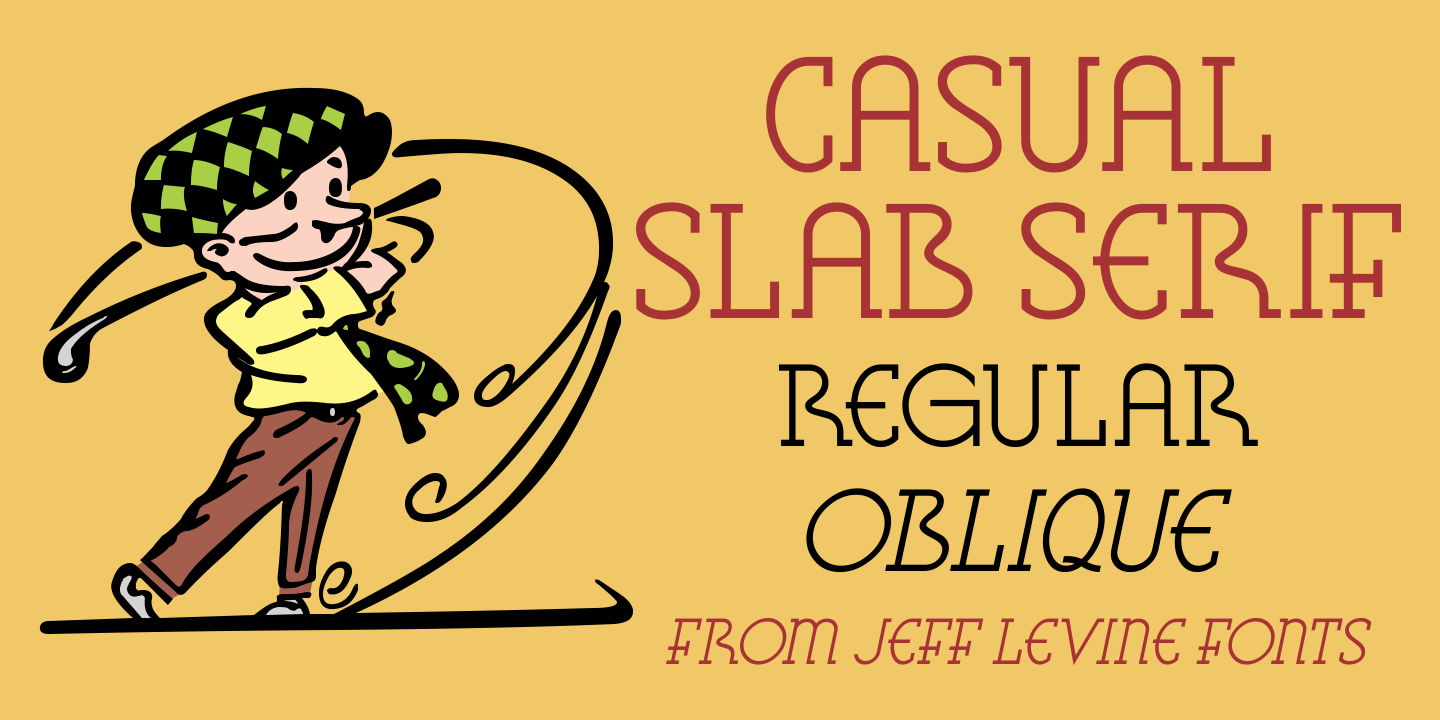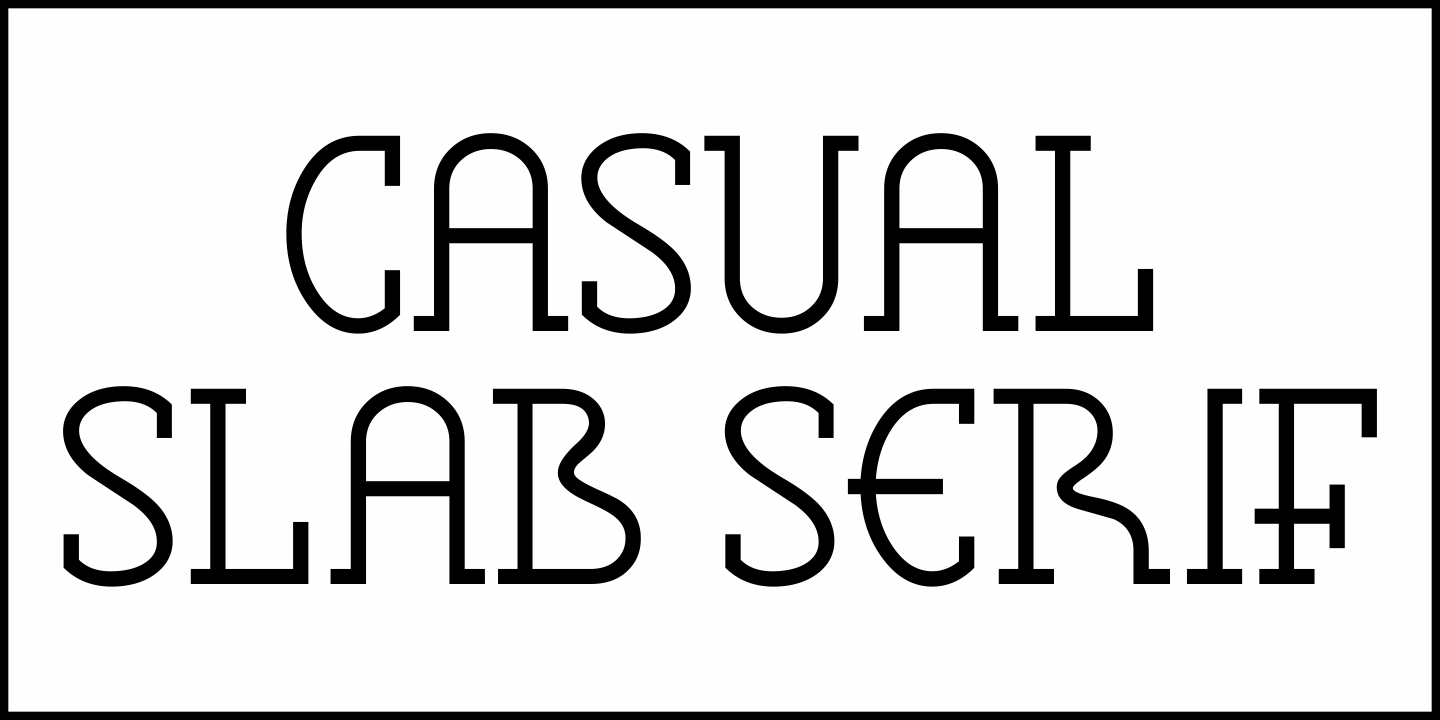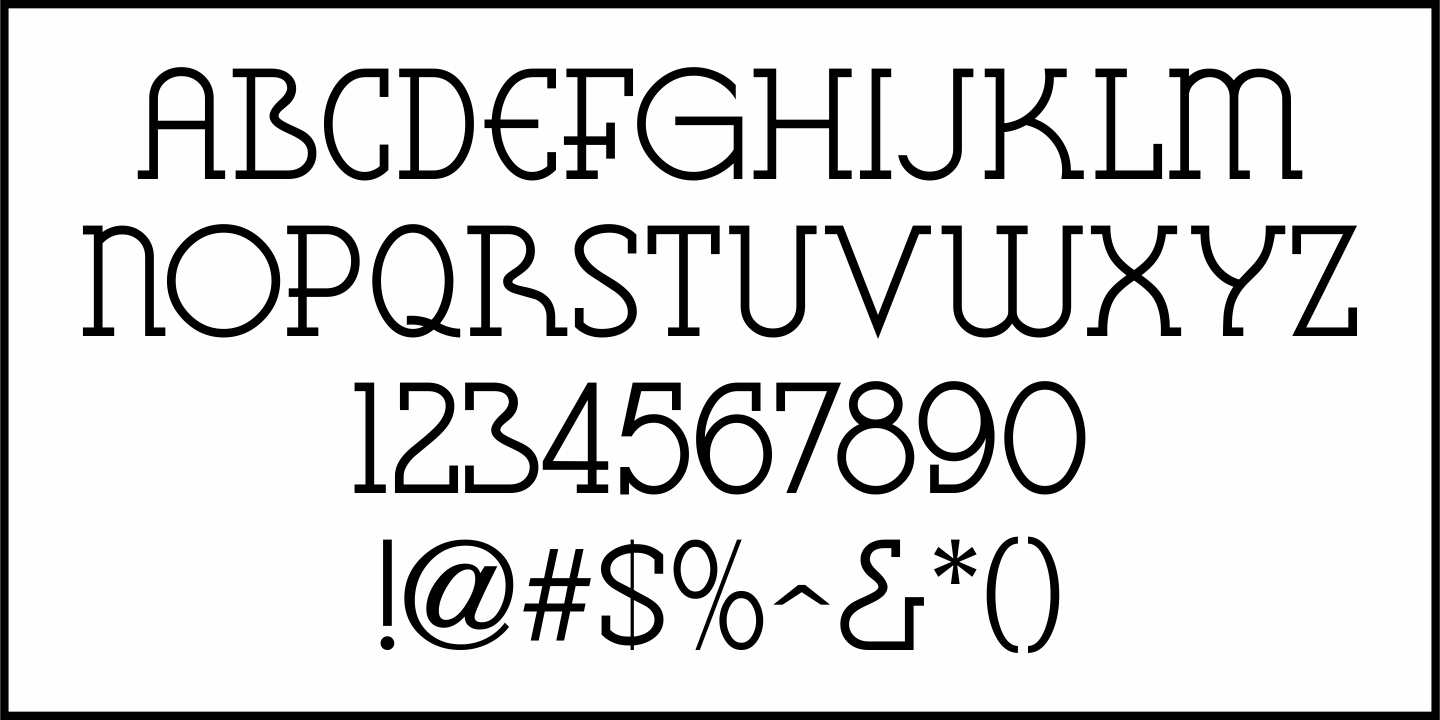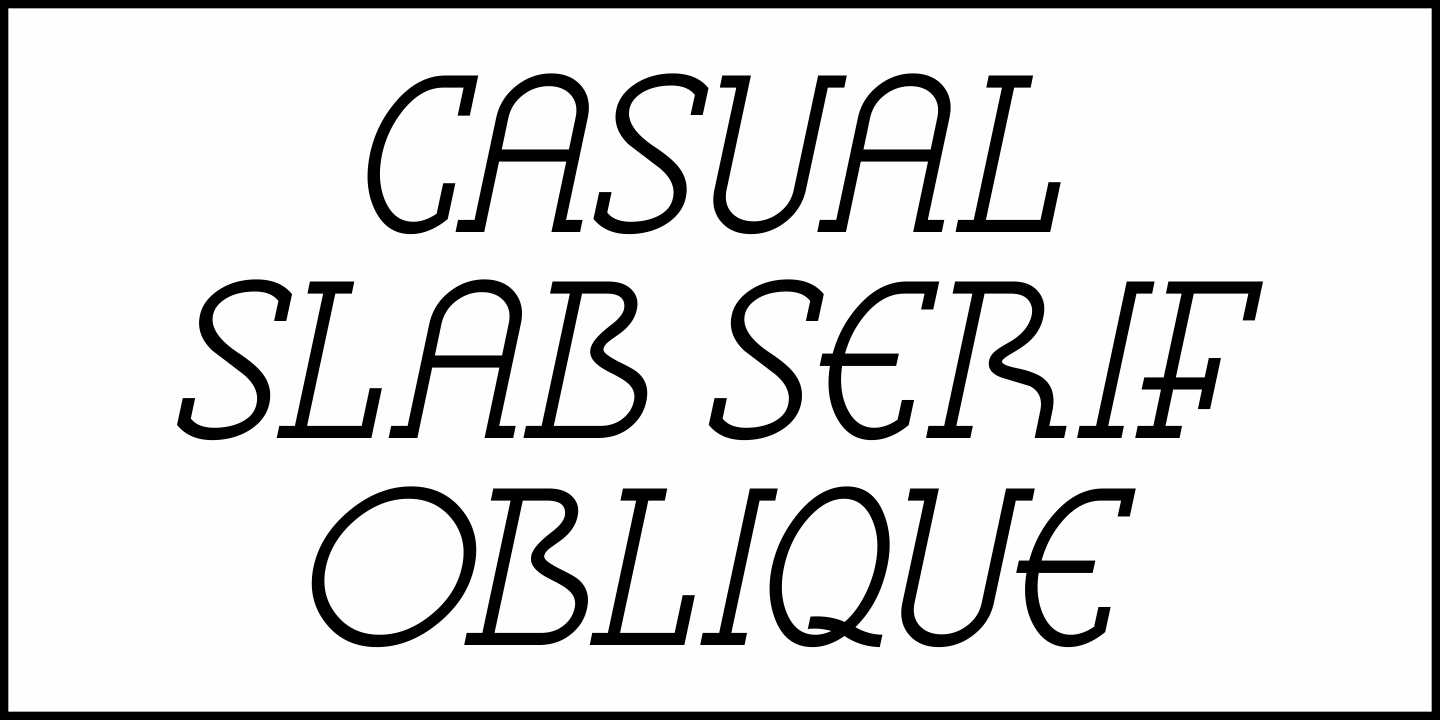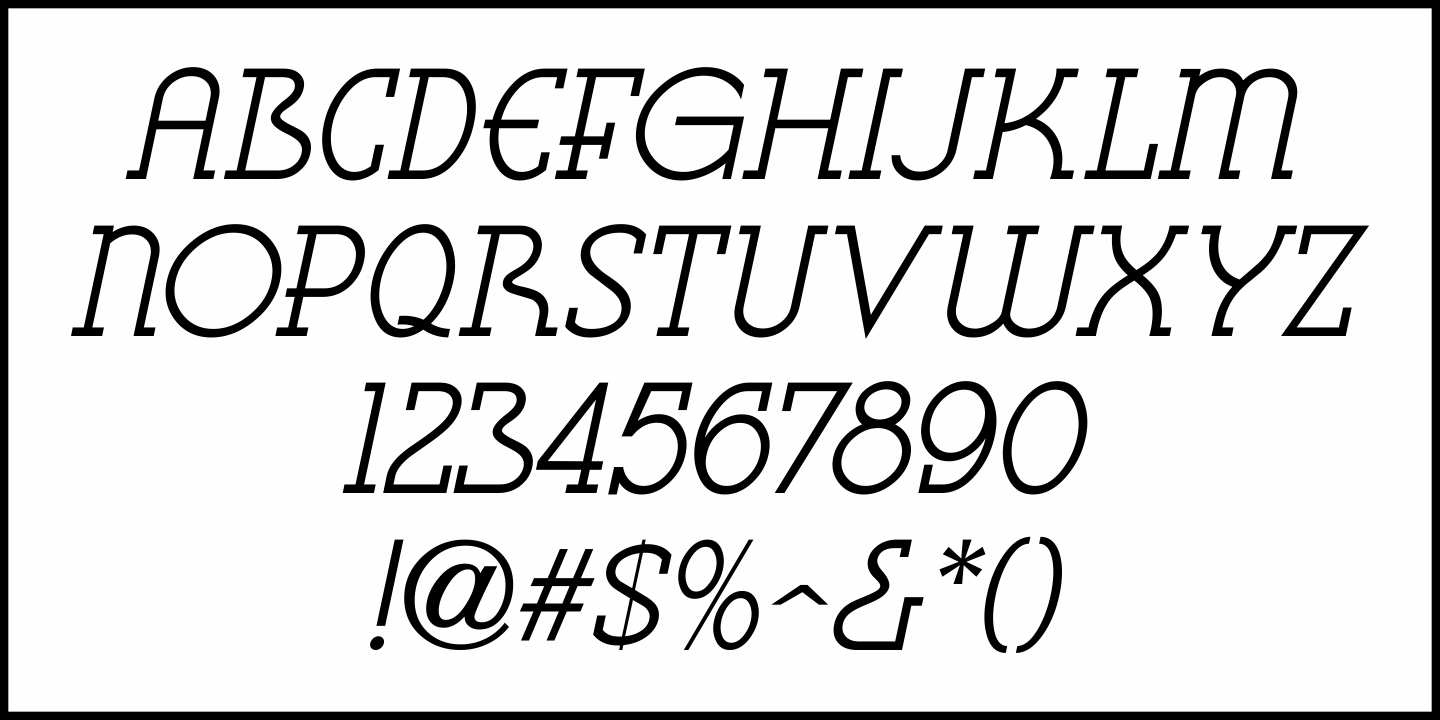
Casual Slab Serif
Samuel Welo's 'Studio Handbook for Artists and Advertisers” (published in both 1927 and 1960) showcased this talented man's hand-lettered alphabets; used as inspiration for the sign trade and for graphic designers.
A particularly interesting slab serif from the 1960 edition has many unusual character shapes, and served as the model for Casual Slab Serif JNL – available in both regular and oblique versions.